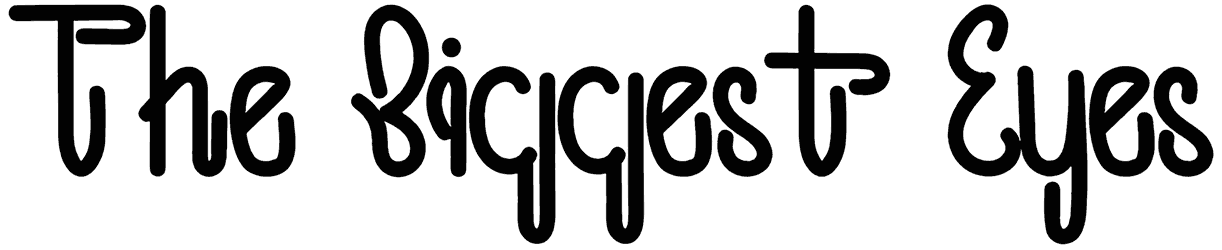
The Biggest Eyes Font
The biggest eyes font is an energetic hand-made font appropriate for games, sweet and chocolate packaging, and stores. It is classified in neon fonts, and your audience would be stunned by its natural warm ambiance. With its friendly curves and silky touch, it will be able to push you to assemble charming outcomes and spark the interest of your audience soon.